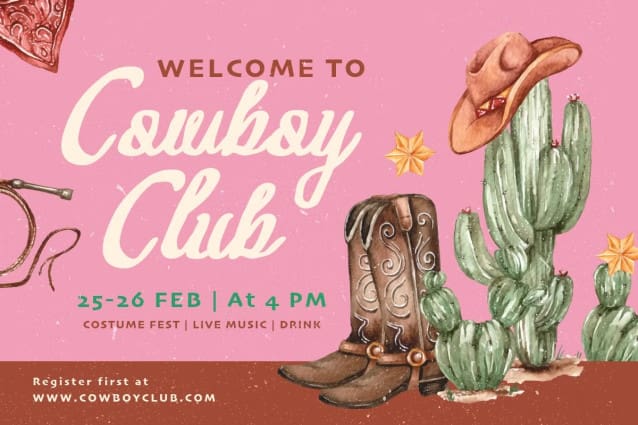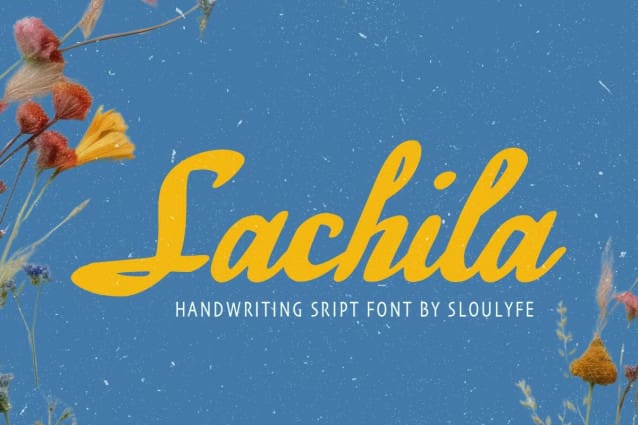
Sachila Script Font
Sachila Script Font, a sassy, bold script font with timeless elegance. Elevate your designs, whether it’s for killer titles, eye-popping book covers, or your brand’s standout logo.